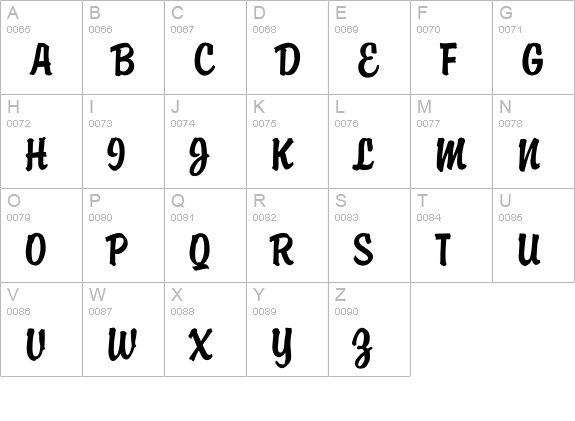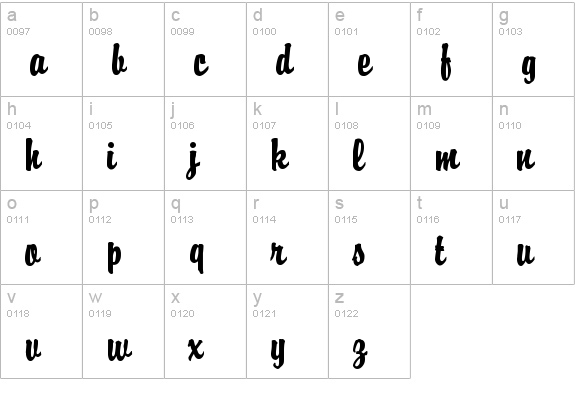
Buddy Font Details
Introducing Buddy font, a charming and versatile typeface that is sure to bring a touch of warmth and friendliness to any design project. This delightful font features a playful yet elegant style, making it perfect for a wide range of applications, from branding to social media graphics to invitations. With its smooth curves and gentle strokes, Buddy font exudes a sense of approachability and whimsy, making it ideal for adding a personal and inviting touch to your designs. Whether you're looking to create a friendly logo, a fun poster, or a cheerful greeting card, this font has got you covered. Best of all, Buddy font is available for free download at FontsMarket.com, making it accessible to designers of all levels. Don't miss out on the opportunity to add this delightful font to your collection and bring a touch of charm to your next project. Download Buddy font today and let your creativity shine!